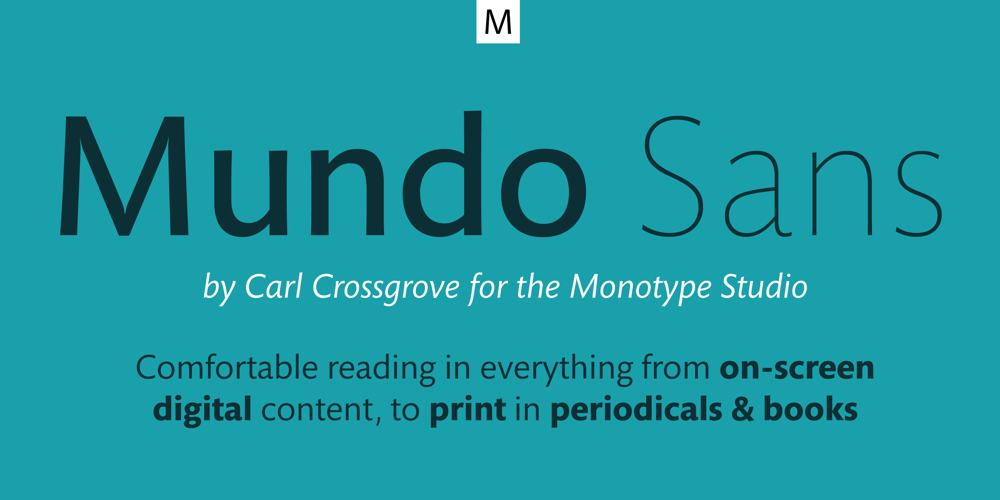
Mundo Sans Font Family was designed by Carl Crossgrove and published by Monotype. Mundo Sans contains 20 styles and family package options. Mundo Sans, by Carl Crossgrove for the Monotype Studio, is distinctive, approachable – and ready to tackle jobs both big and small. Its open counters and large x-height, which give the design a straight-forward no-nonsense mien, are softened by inviting calligraphic undertones. With 10 weights and a complementary suite of cursive italics, there is little outside the range of the Mundo Sans family. The light weights are elegant in packaging and brochure design, the medium are easy readers in digital blogs and print periodicals and the bold command attention in banners and headlines. Mundo Sans is at home in a wide range of sizes, and comfortable in everything from wayfinding to mobile apps. Mundo Sans takes on complicated branding projects with efficient grace. The family enables companies and products to express their brand seamlessly in websites, advertising, corporate messaging, packaging – virtually everywhere visible engagement is possible. A large international character set, that includes support for most Central European and many Eastern European languages, ensures ease of localization. Mundo Sans was originally released with seven weights. The family was updated with three new roman weights and their italics in 2019 that extend and diversify its range of use: a fine hairline weight, a book weight, slightly lighter than regular, and a demi that is subtly lighter than the medium. The design is also is a good mixer. It easily pairs with everything from refined Didones to stalwart slab serif designs. And if you need a more harmonious palette, look no further than Mundo Sans’ relative, Mundo Serif. The two designs harmonize with each other perfectly in weight, typographic color and proportion. Mundo Sans’ italics are true cursive designs, with fluid strokes and obvious calligraphic overtones. The flick of the down-stroke in the ‘a,’ the descending stroke of the ‘f’ and baseline curve of the ‘z’ add grace to the design and distinguish it from more mechanistic styles. Mundo Sans is a design with deep roots. It was originally drawn to pair with classic Renaissance book typefaces like Bembo® and ITC Galliard®. With a hint of diagonal stroke contrast and gentle flaring of strokes, Mundo Sans complements these designs with warmth and grace. Crossgrove says that Mundo isn’t meant to be showy or distinctive. It is intended to follow the tradition of sans serif designs that have a wide range of uses, enabling comfortable reading and clear expression. Crossgrove has designed a variety of typefaces ranging from the futuristic and organic Biome™ to the text designs of Monotype’s elegant Walbaum™ revival. His work for Monotype also often takes Crossgrove into the realm of custom fronts for branding and non-Latin scripts.